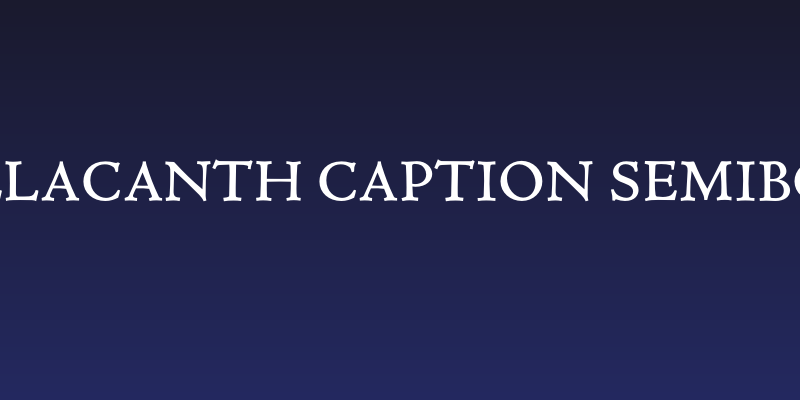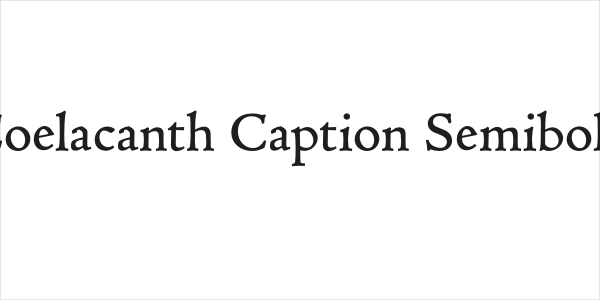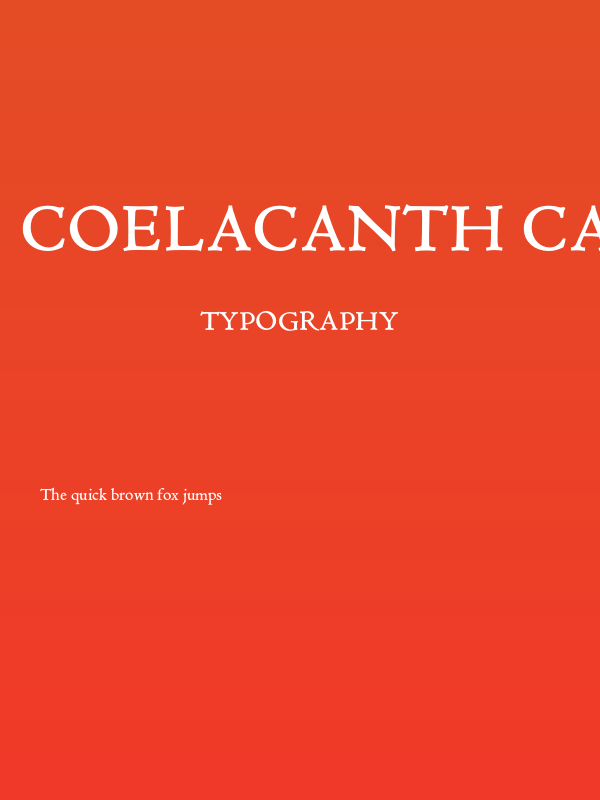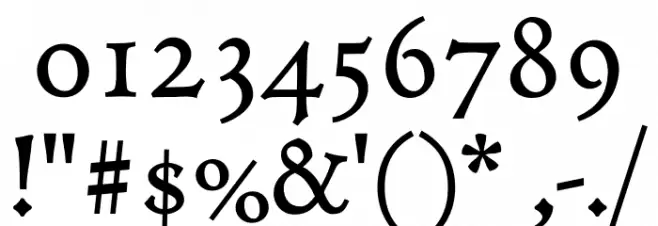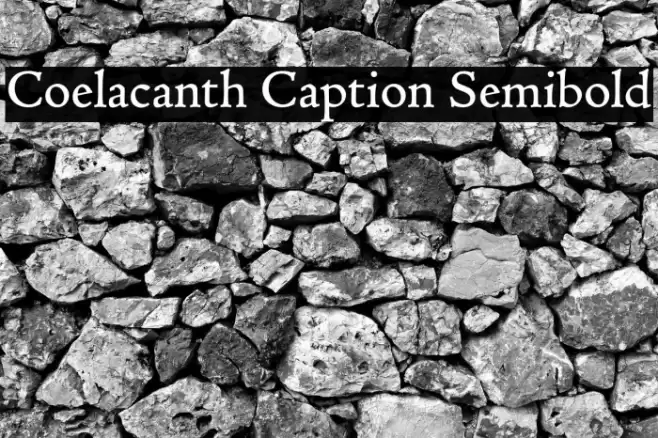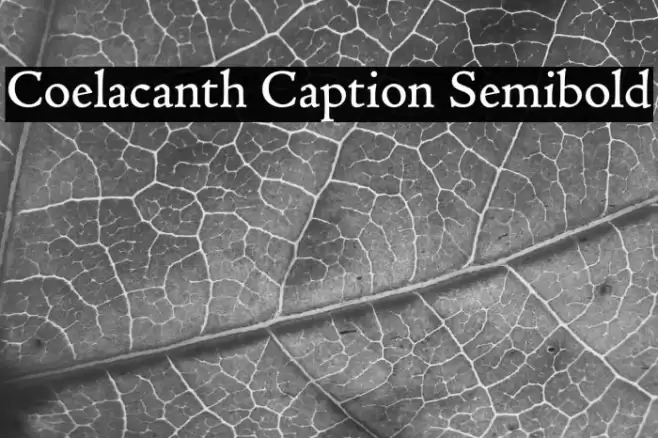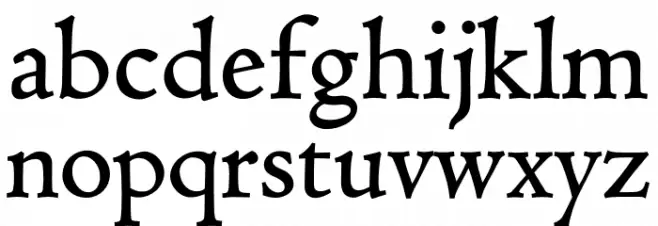
Coelacanth Caption Semibold Font
Coelacanth Caption Semibold Description
This font features a classic serif style with a distinctive semi-bold weight, offering a strong yet elegant appearance. The characters exhibit a traditional design with slightly flared serifs, providing a timeless and authoritative feel. The uppercase letters are well-proportioned, while the lowercase letters maintain a consistent x-height, enhancing readability. The numerals are clear and balanced, making them suitable for various applications. Special characters are thoughtfully designed, maintaining the overall aesthetic of the font. This font is versatile, suitable for both digital and print media, and can be used to convey a sense of sophistication and reliability.
| Overall Style | Classic |
| Use Case | Headlines, Body text, Logos |
| Proposed Projects | Ideal for book covers, editorial design, branding, and formal invitations. |